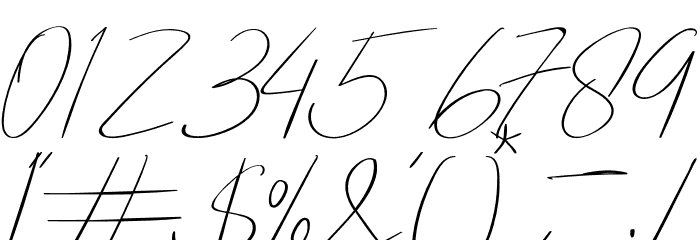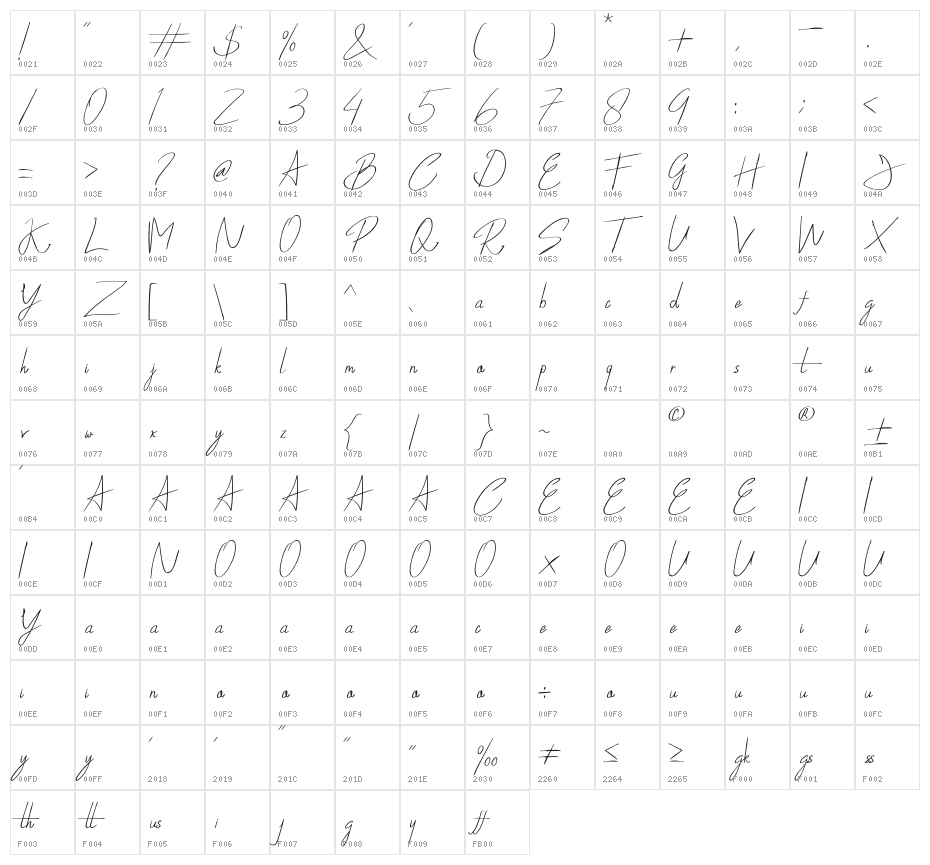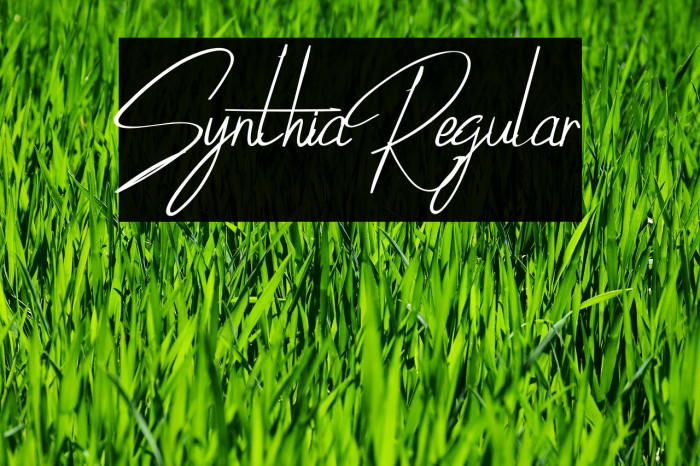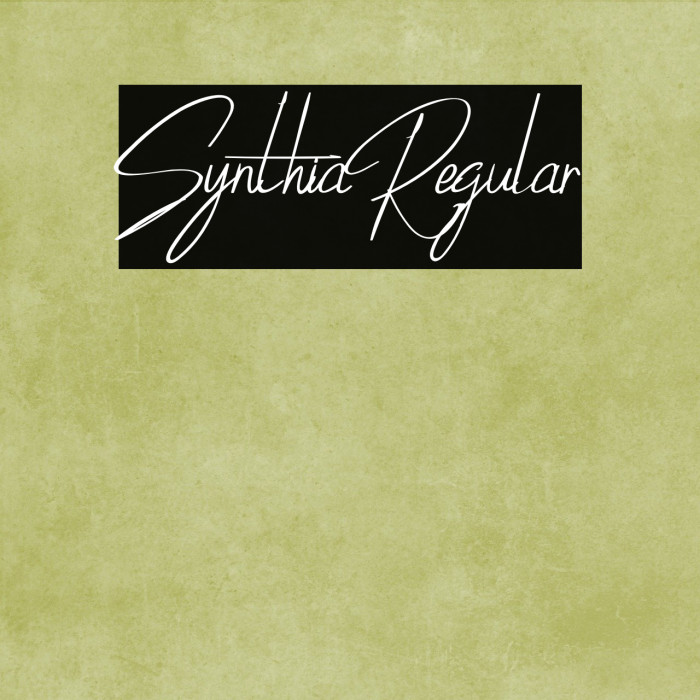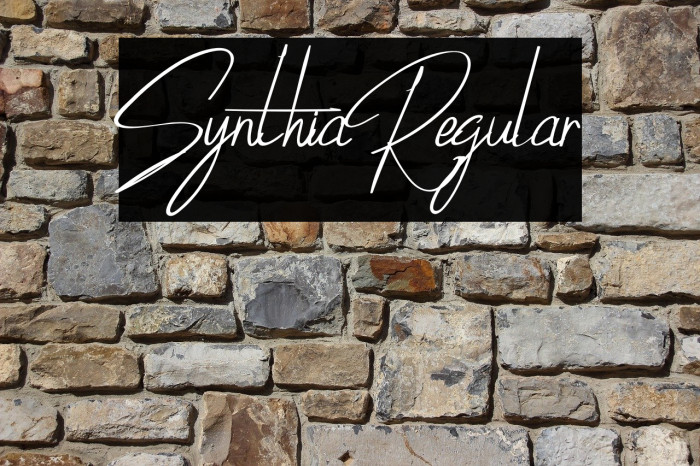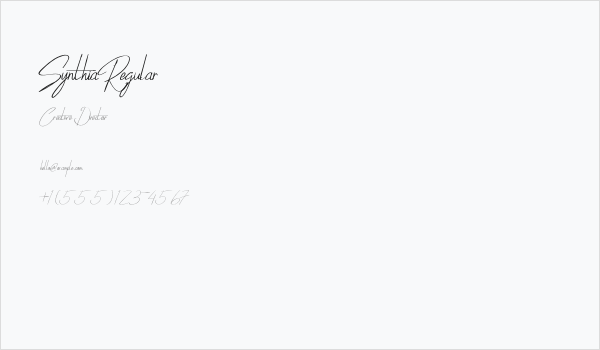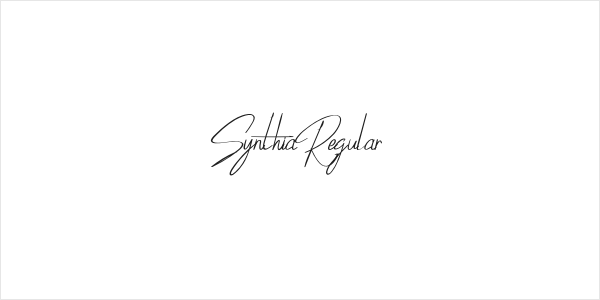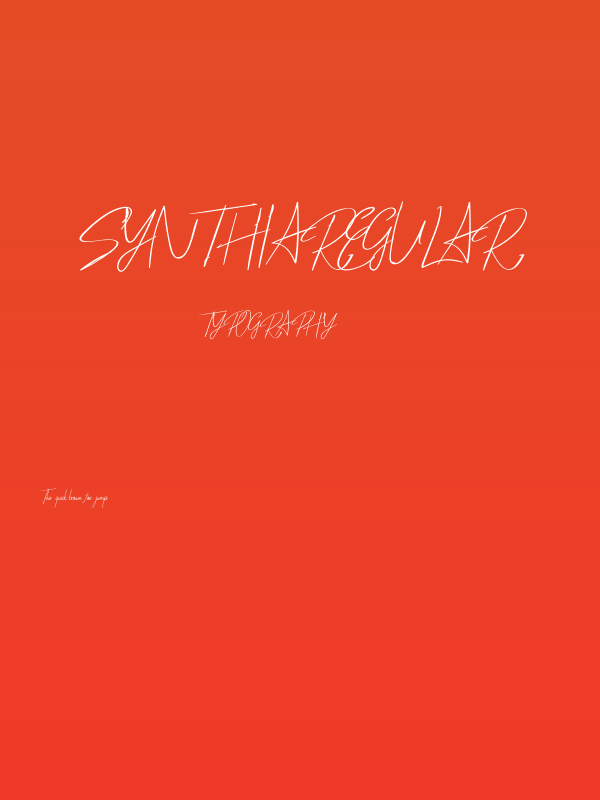
SynthiaRegular Font
SynthiaRegular Description
This font exhibits a dynamic and fluid handwritten style, characterized by its elegant and elongated letterforms. The strokes are thin and consistent, giving it a light and airy appearance. The uppercase letters are particularly expressive, with sweeping curves and a sense of motion. The lowercase letters maintain a cohesive flow, enhancing the script-like quality. Numbers and special characters are crafted with the same attention to detail, ensuring uniformity across the typeface. This font's overall aesthetic is both sophisticated and approachable, making it versatile for various design applications.